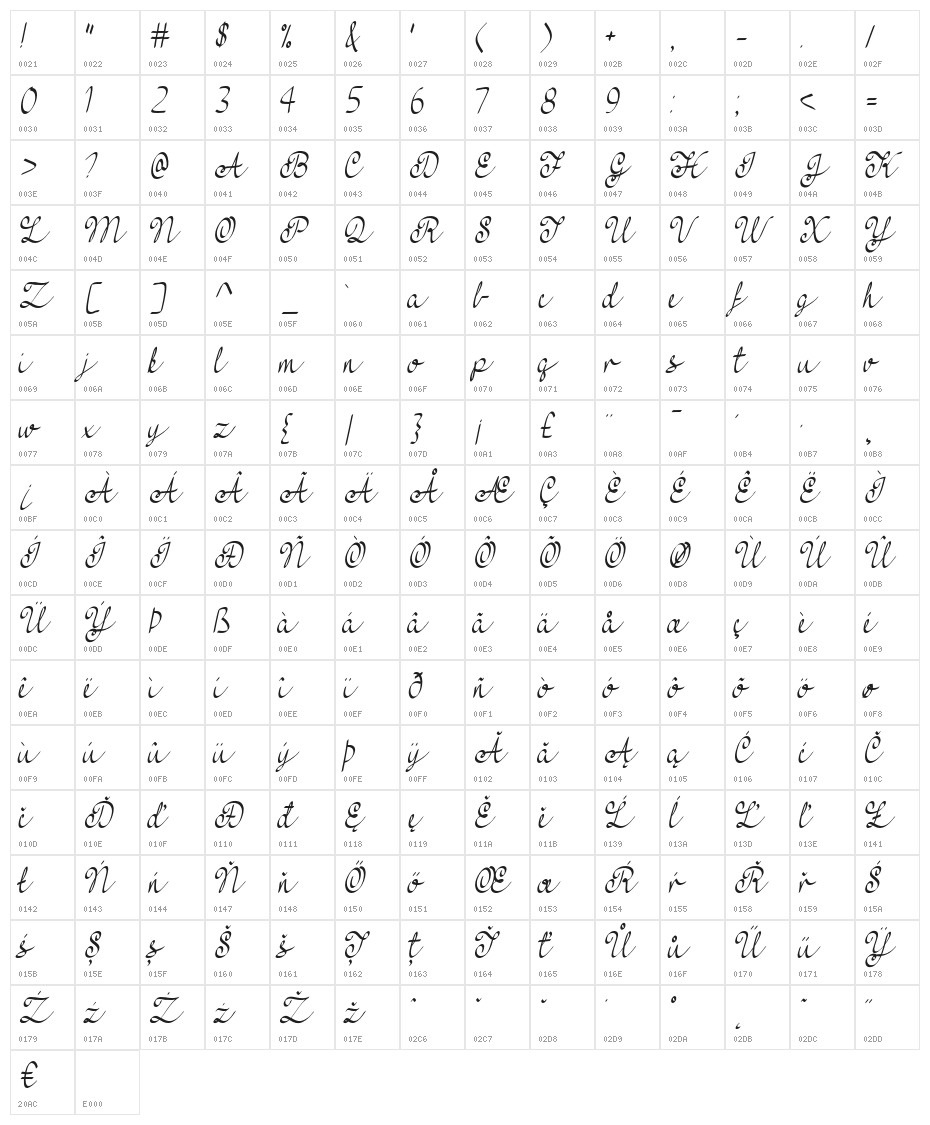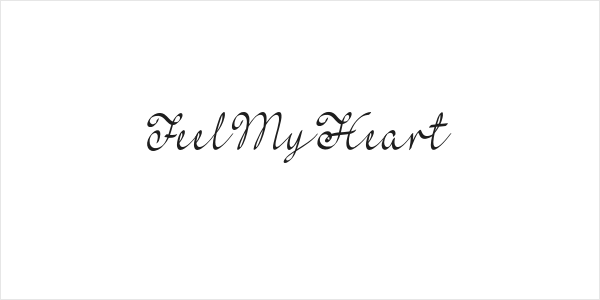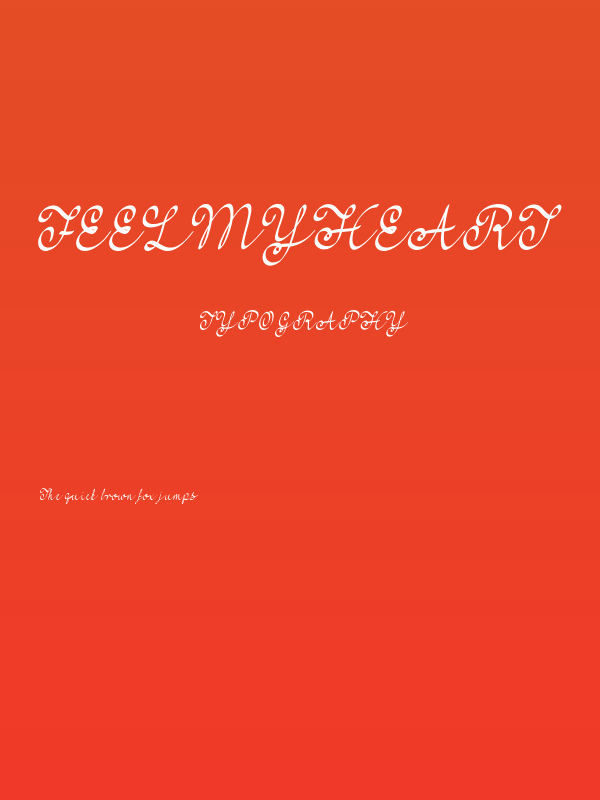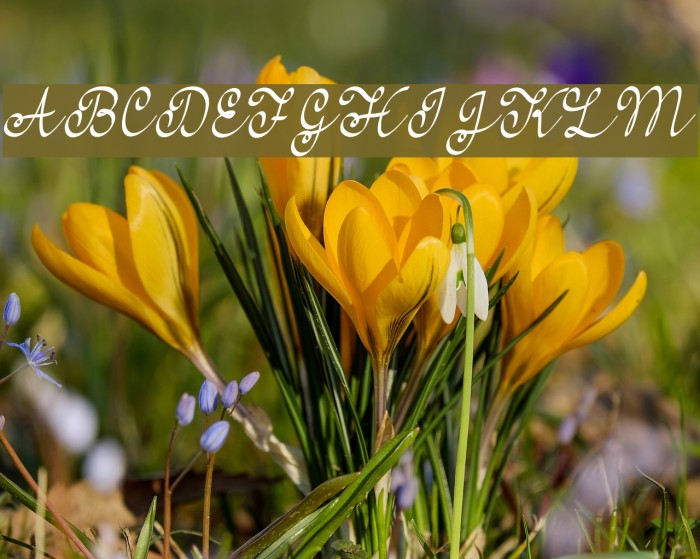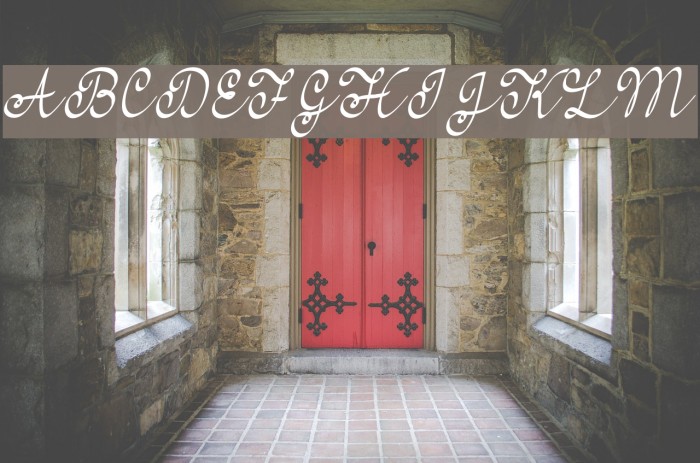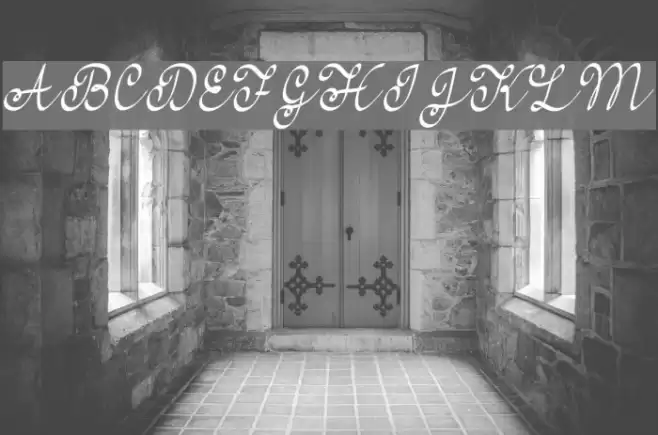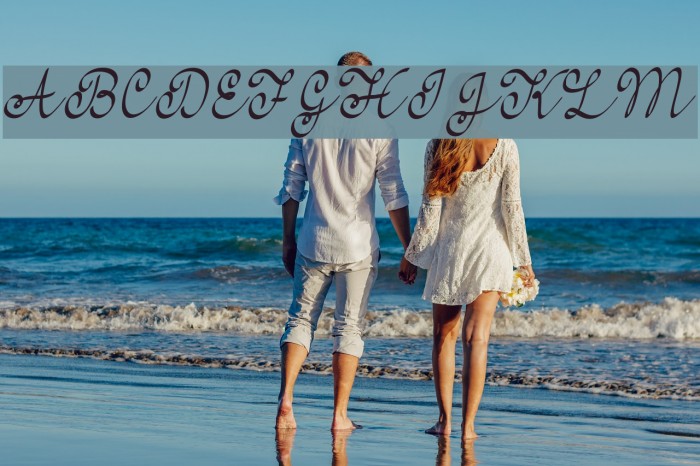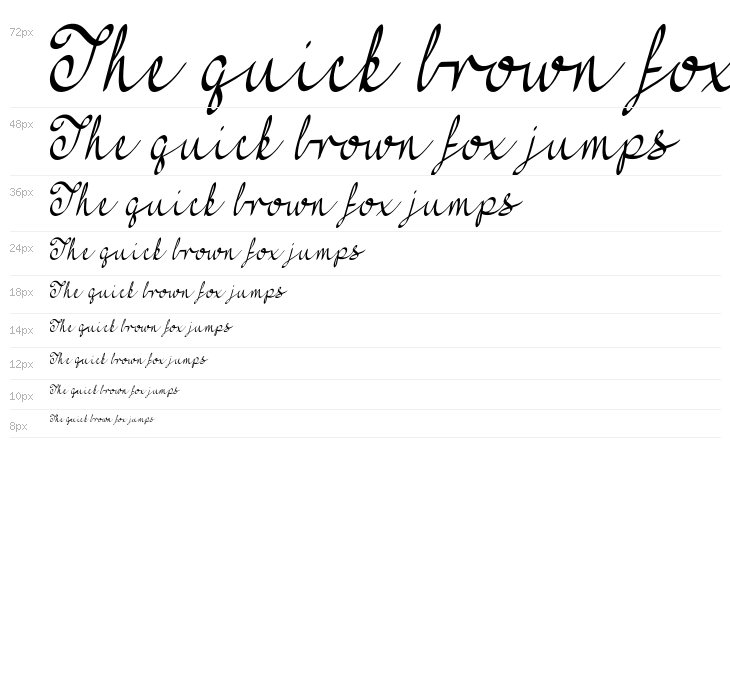
FeelMyHeart Font
FeelMyHeart Description
This font exudes a charming and elegant script style, characterized by its flowing, cursive letterforms. Each character is crafted with a sense of fluidity and grace, featuring smooth curves and delicate loops that create a sense of movement. The uppercase letters are particularly ornate, with intricate swirls and flourishes that add a touch of sophistication. The lowercase letters maintain a consistent style, with elongated ascenders and descenders that enhance the font's overall elegance. The numerals and special characters are designed to complement the script style, ensuring a cohesive look across all text. This font is perfect for projects that require a personal, handwritten touch, such as invitations, greeting cards, and branding materials.
| Use Case | Headlines, Invitations, Branding |
| Proposed Projects | Ideal for wedding invitations, greeting cards, personal branding, and decorative signage. |